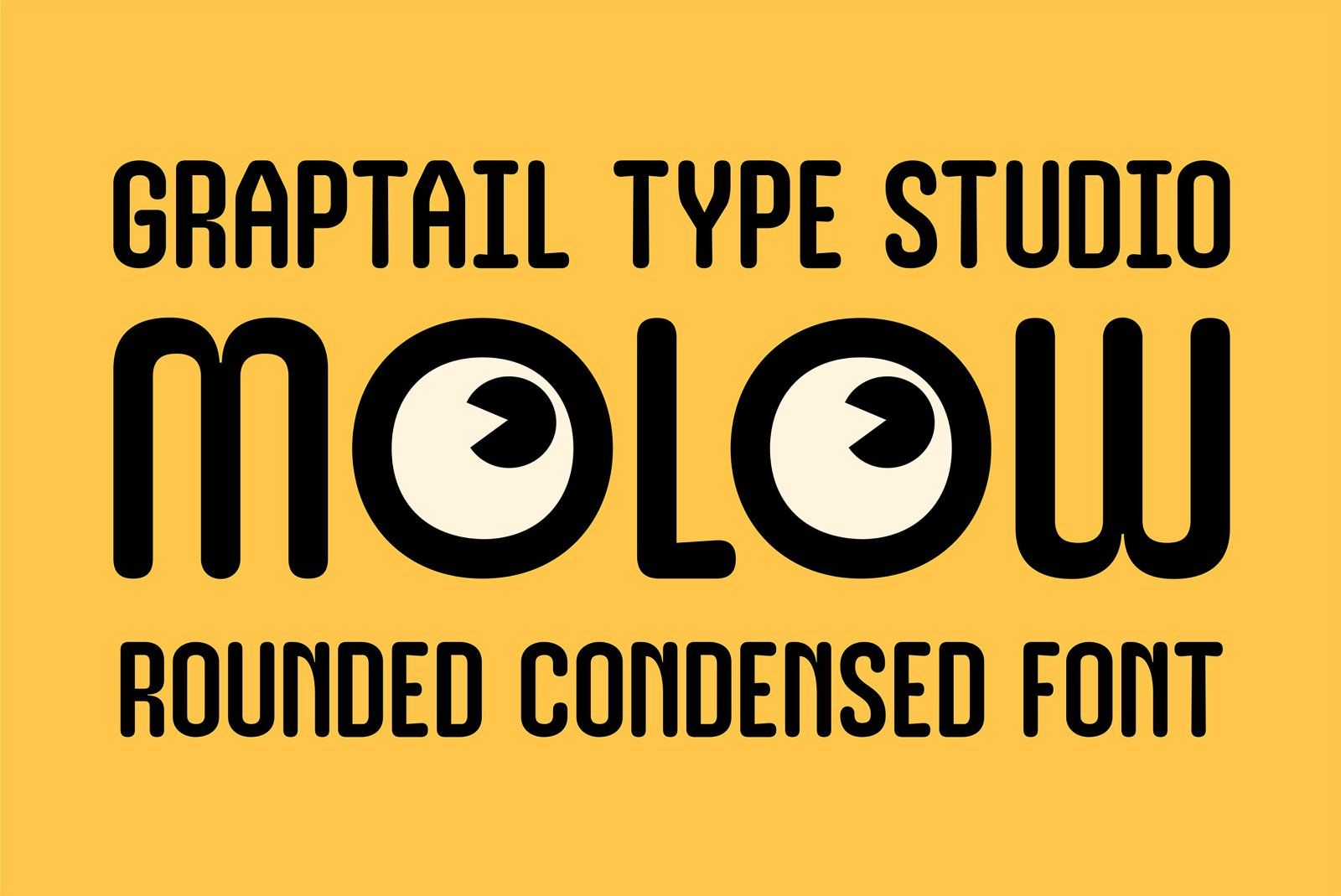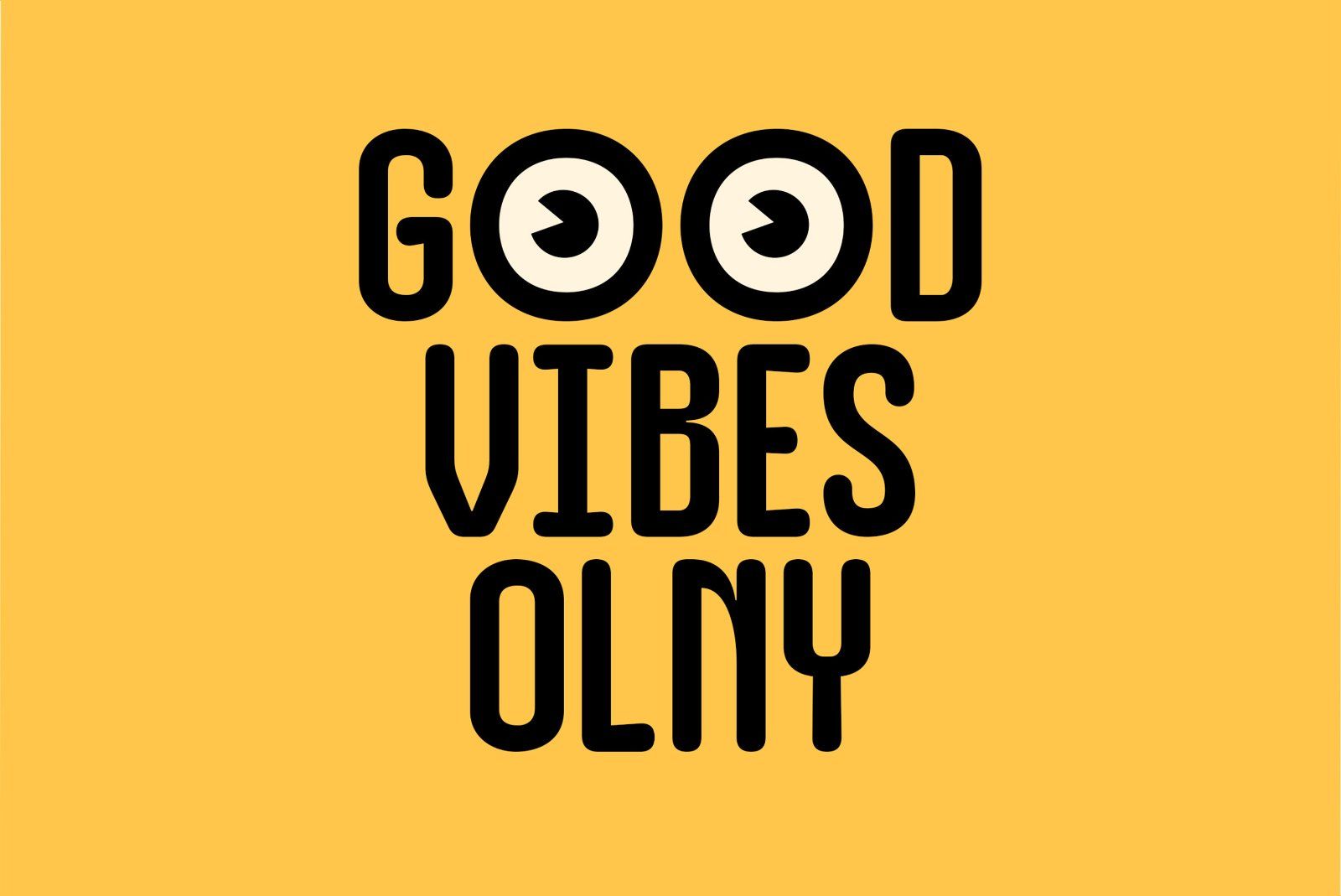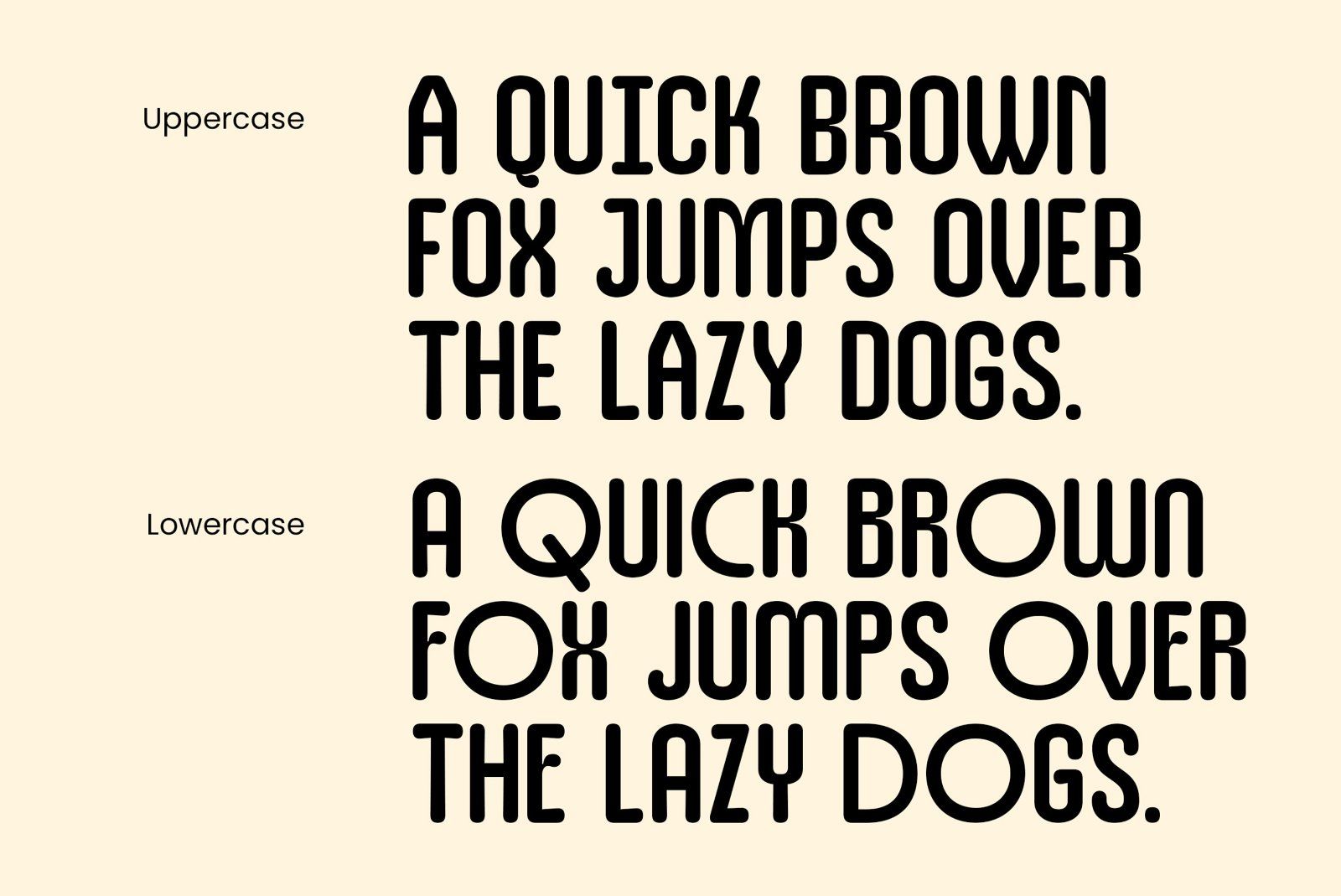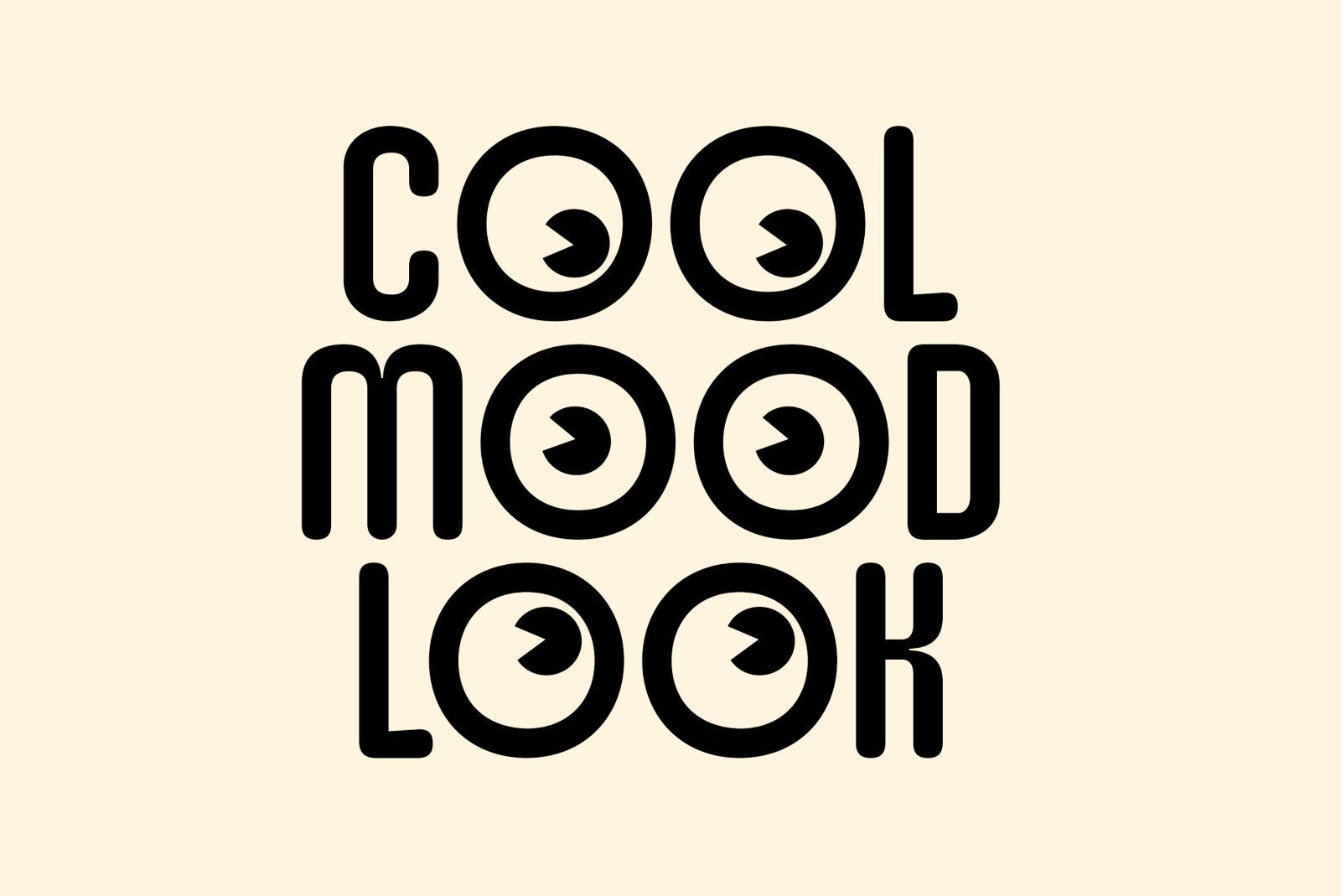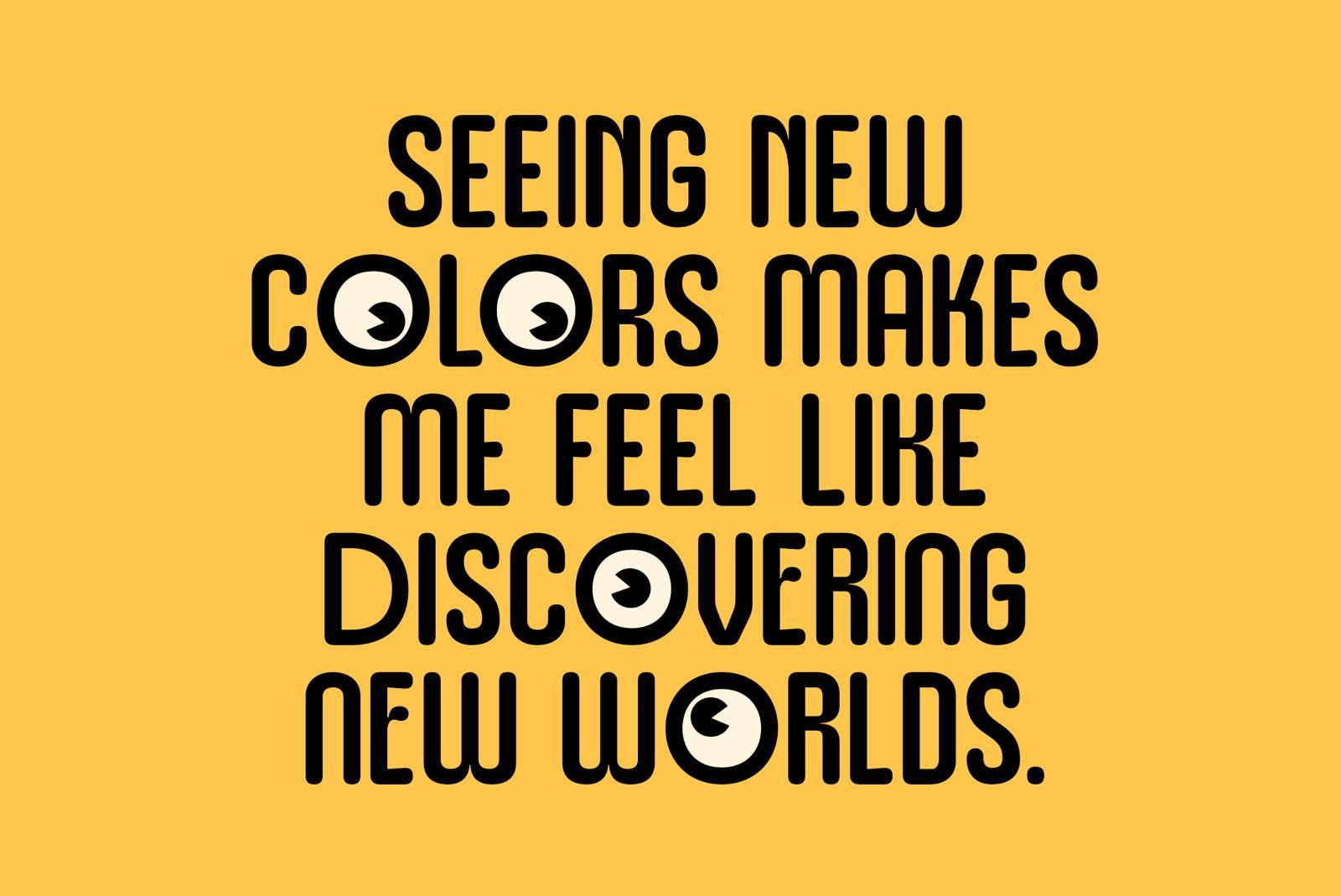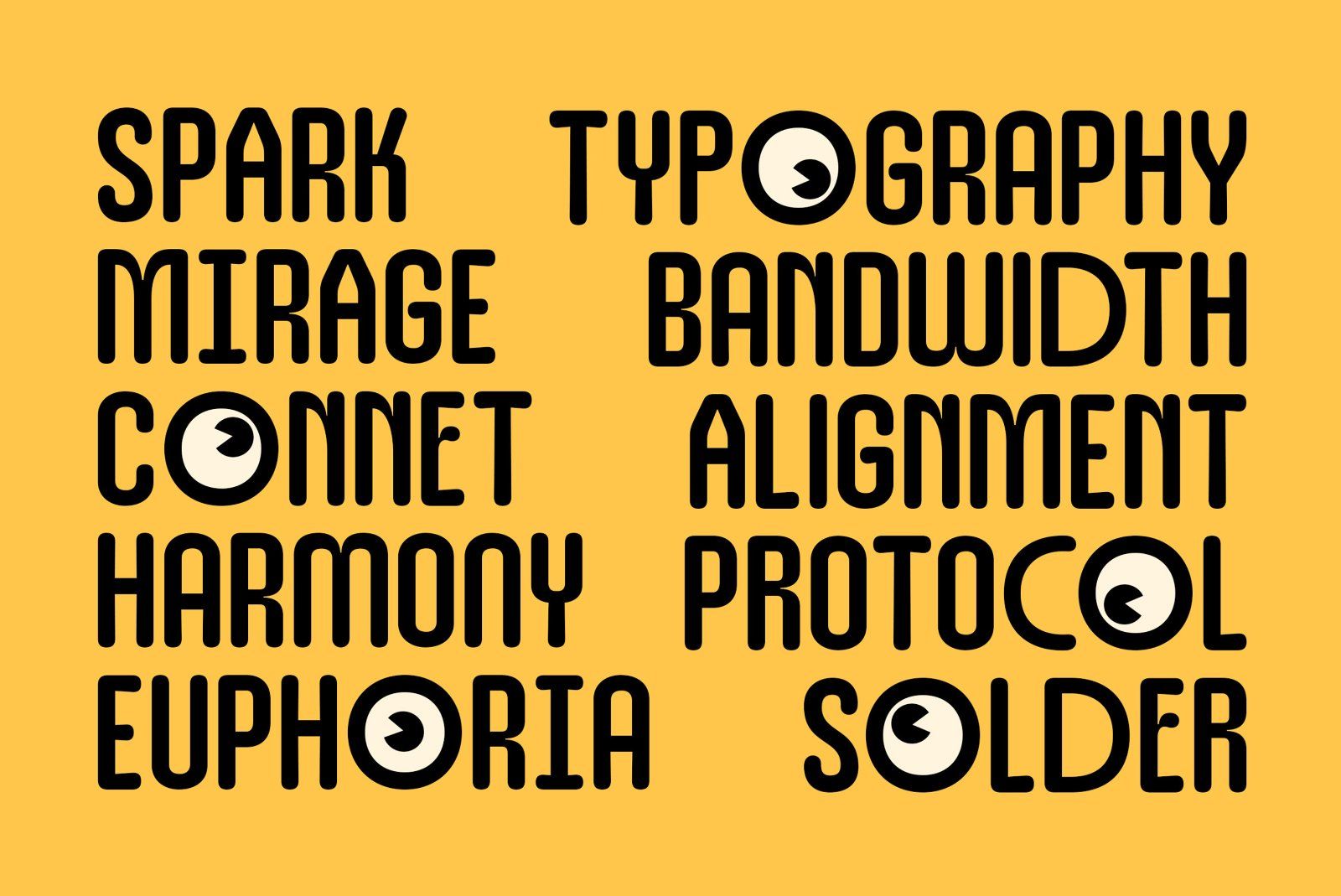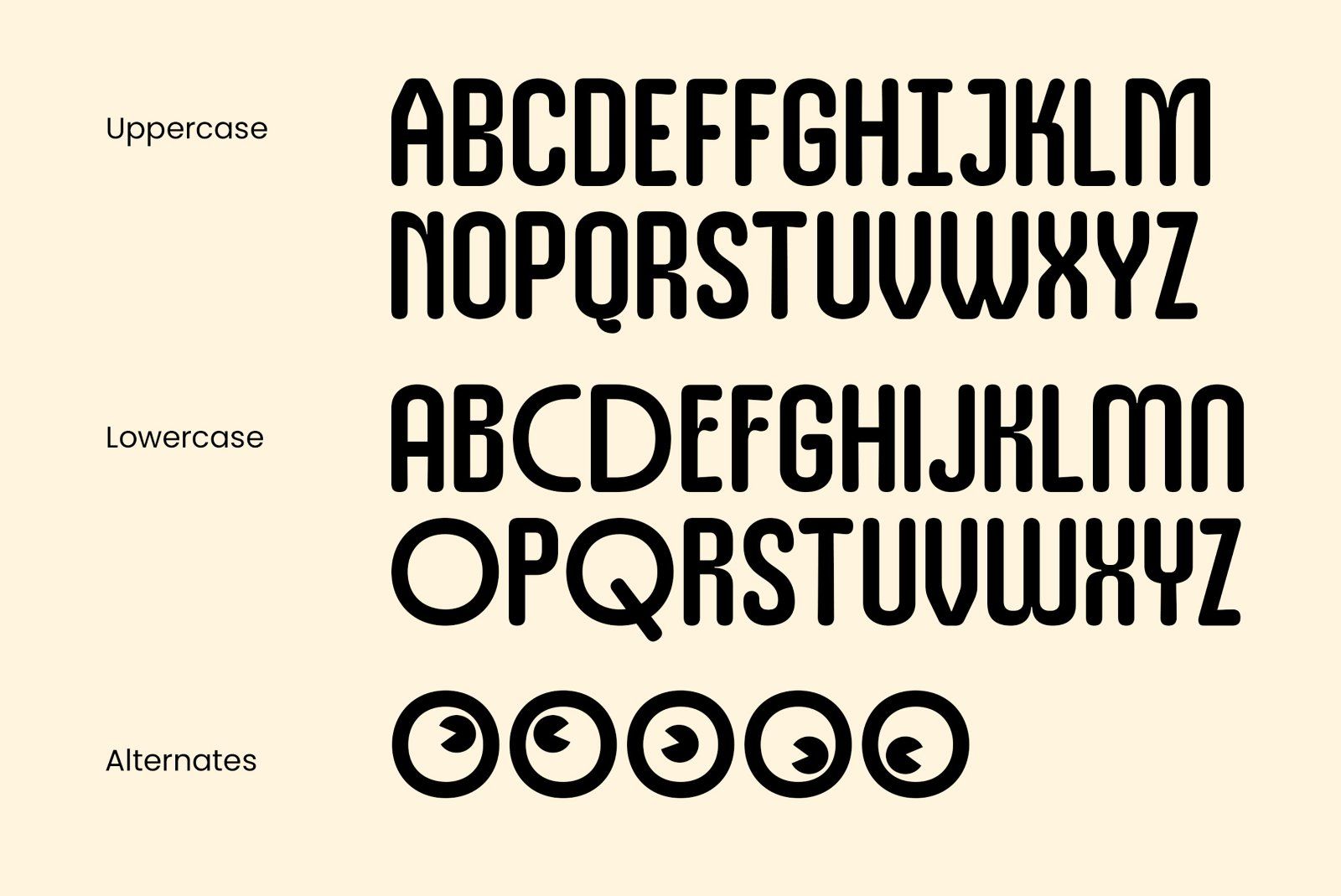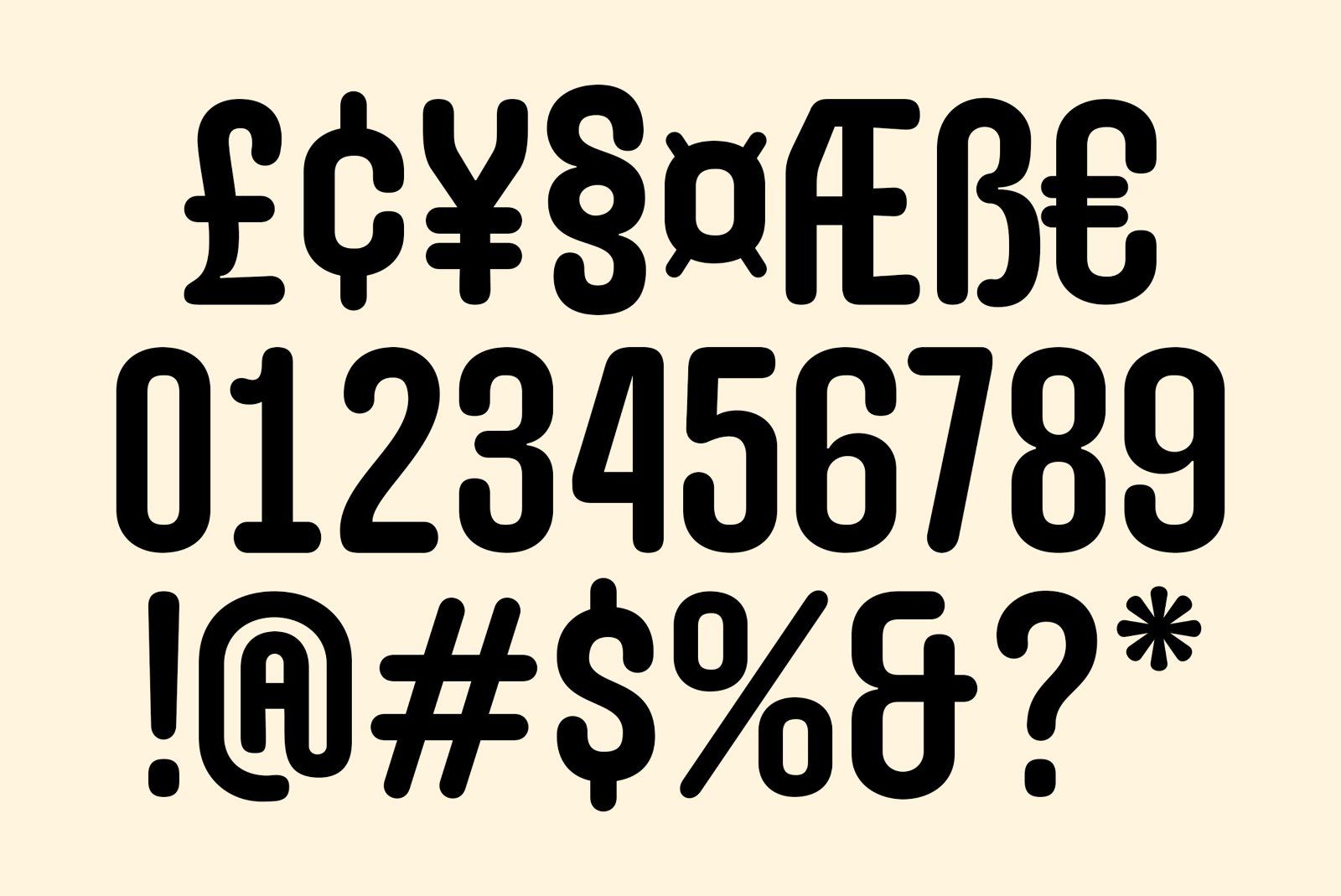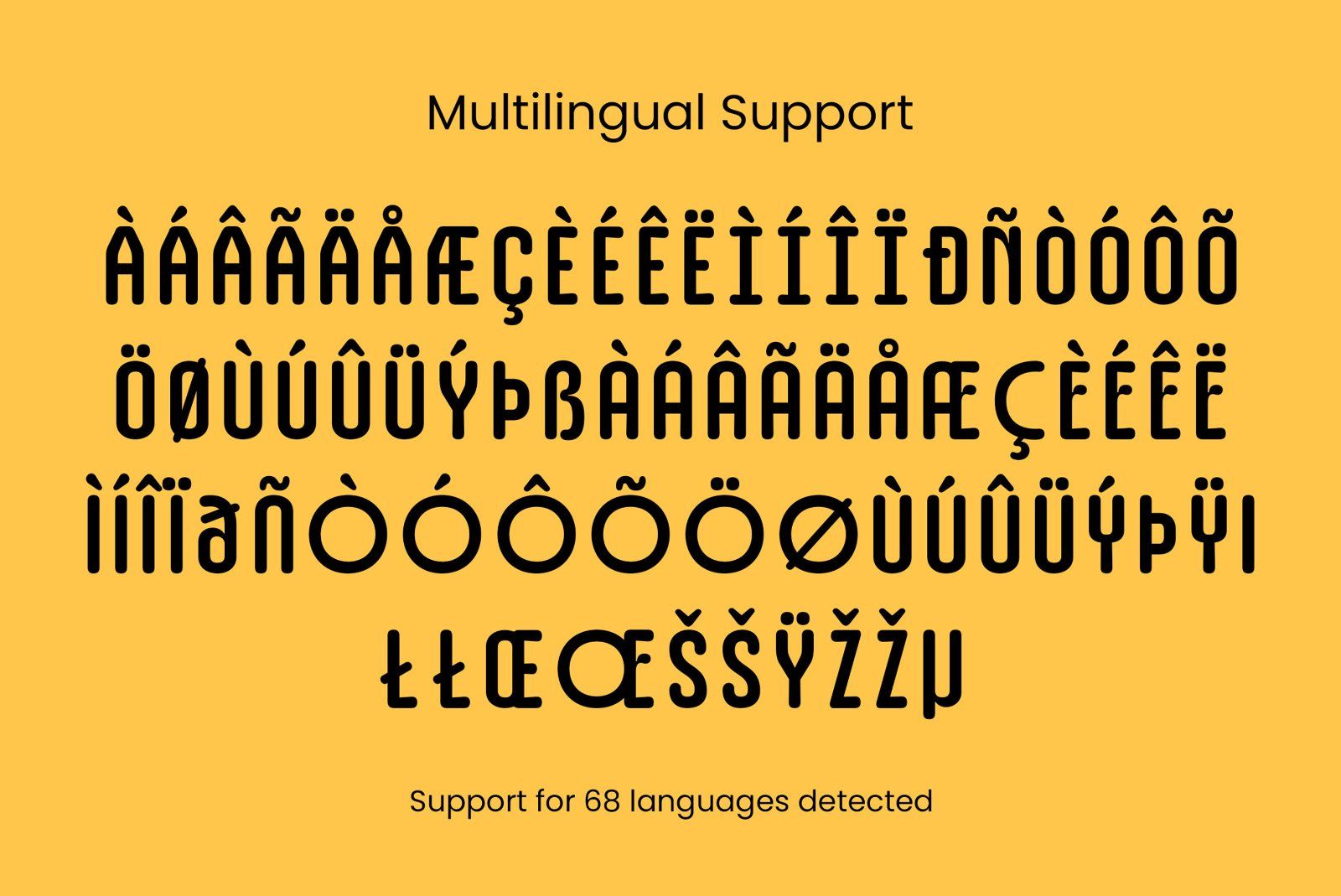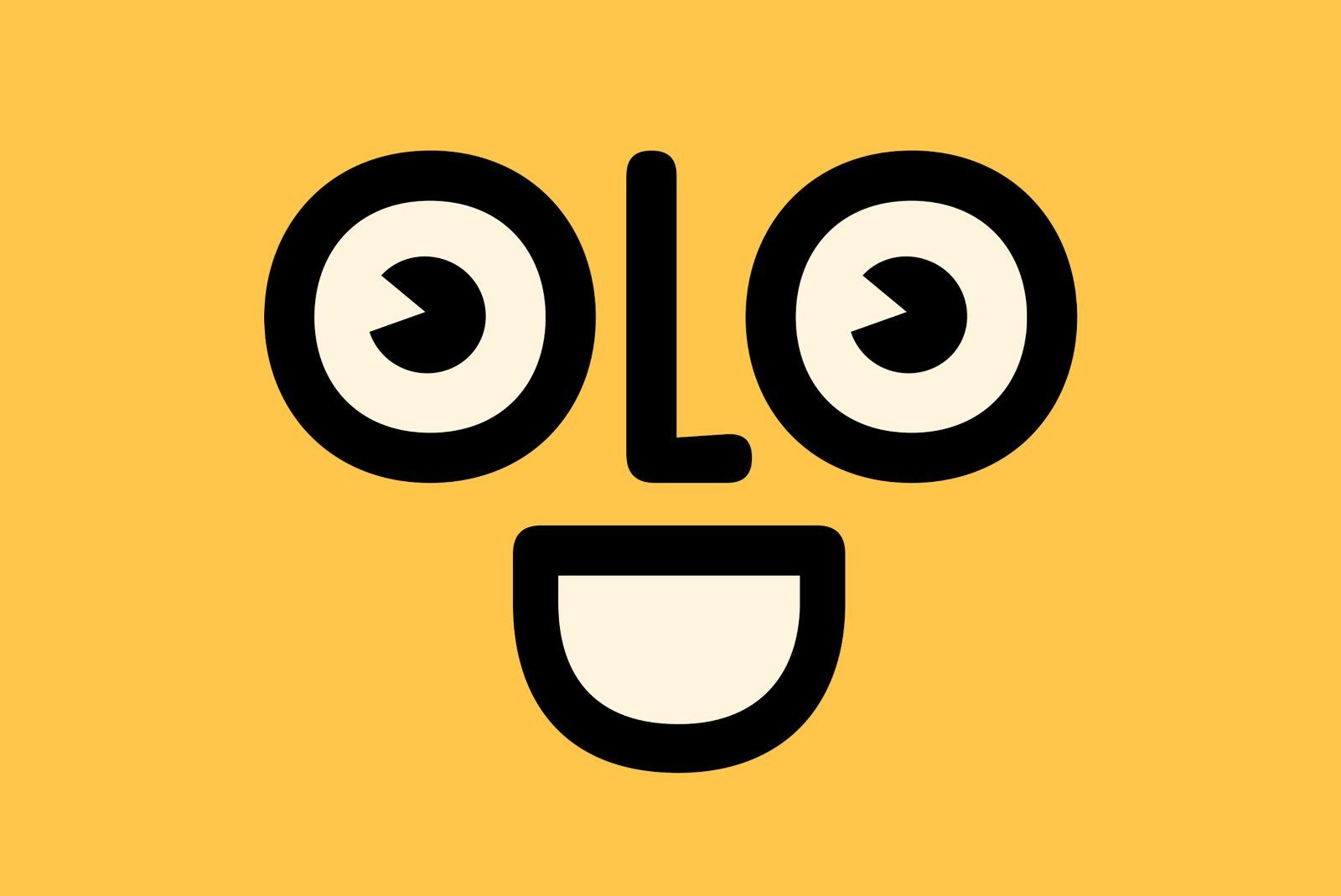
Molow - Rounded Condensed FontMolow – Rounded Condensed Font
Playful Shape. Bold Personality.
Molow is a rounded condensed font that blends a modern, fun, and expressive style in every letter. Its main feature lies in the five unique small “o” variations, each designed to resemble eye-like shapes, adding character and emotion to your typography.